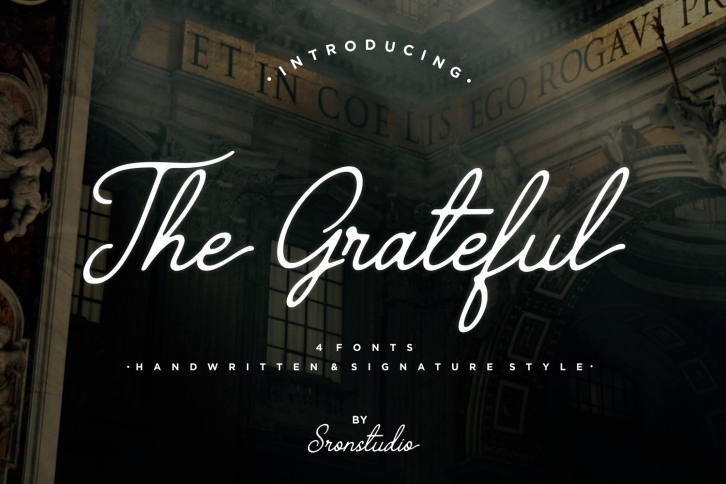
The Grateful is a classic handwritten font, comes with 4 versions that giving you a handwritten and signature feel. This monoline, neat font is a great way to add a hip appeal to your logotype and display designs without compromising on giving your work a sleek look.
• More than 240 of glyphs
• Ligature and alternates
• Include Multilingual support